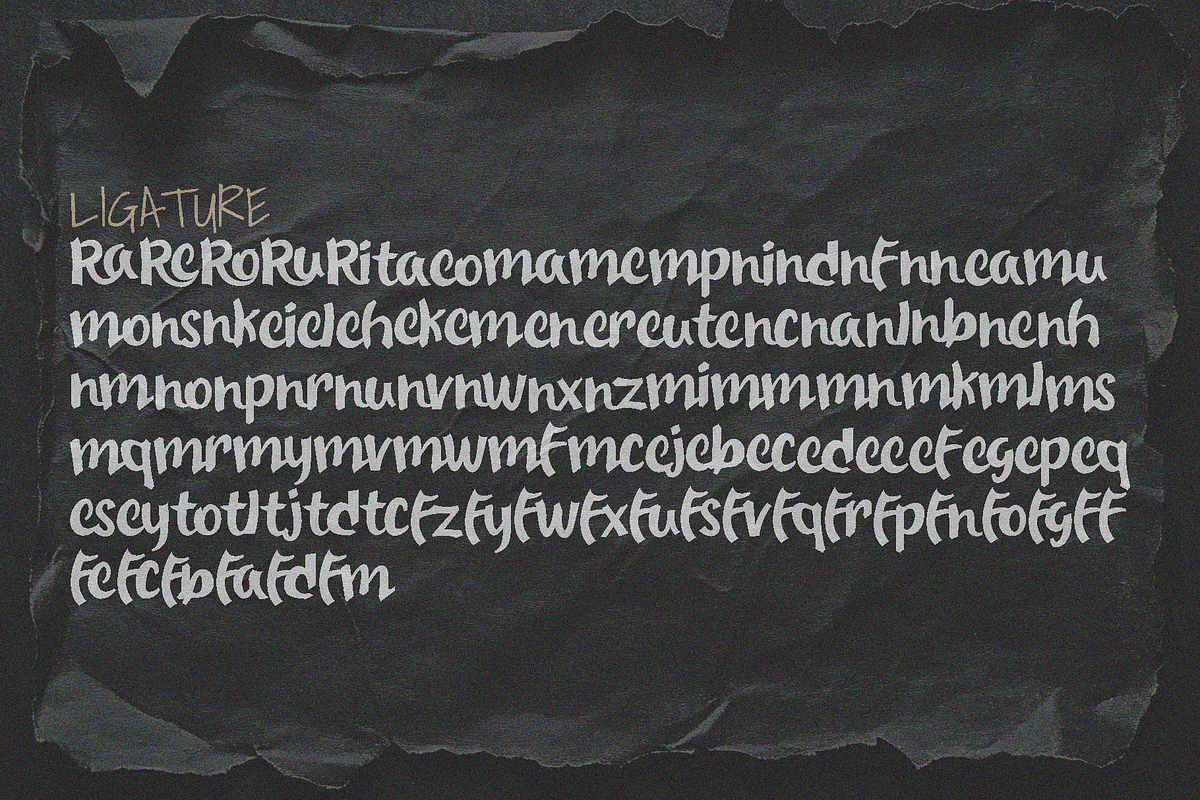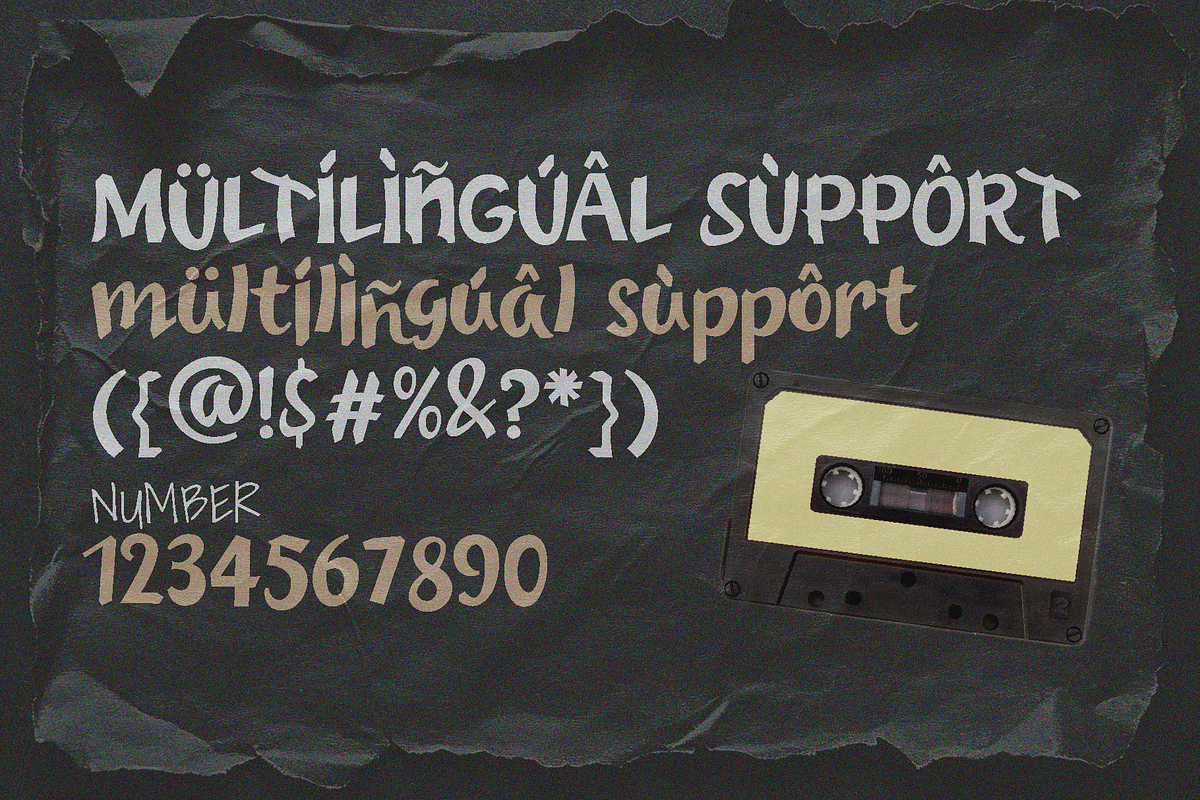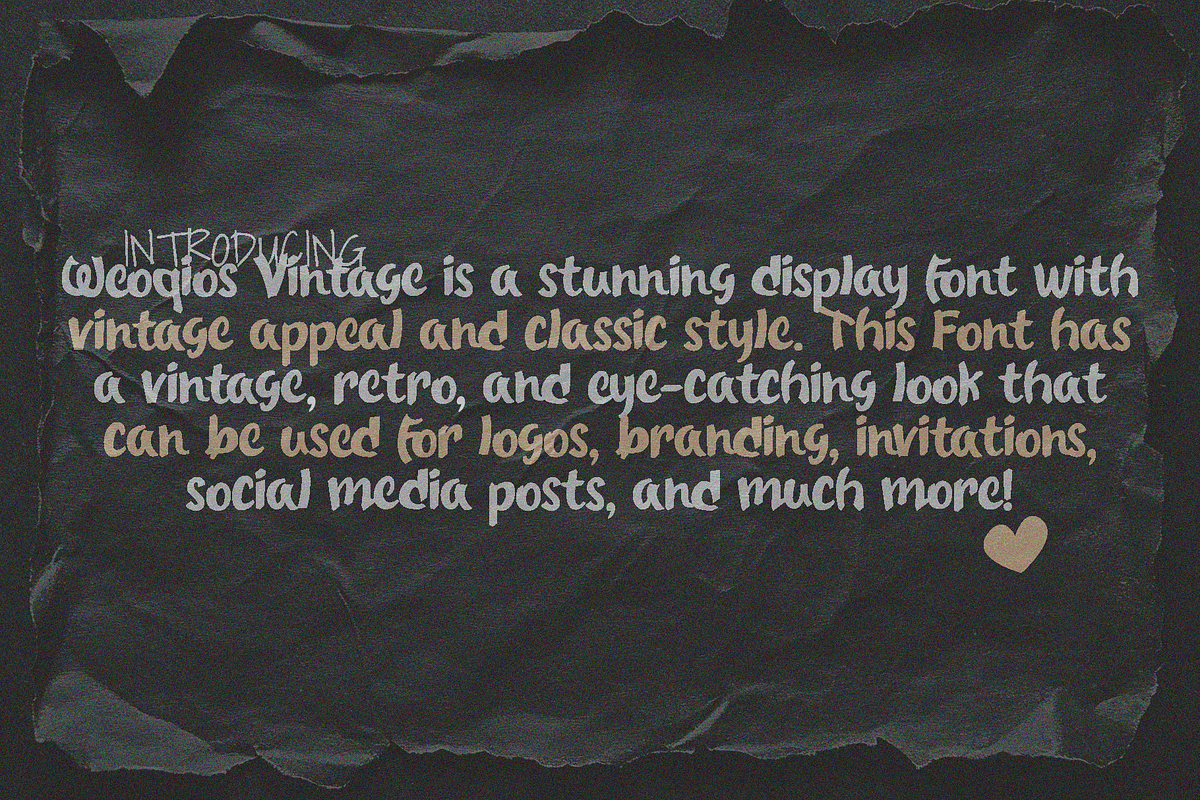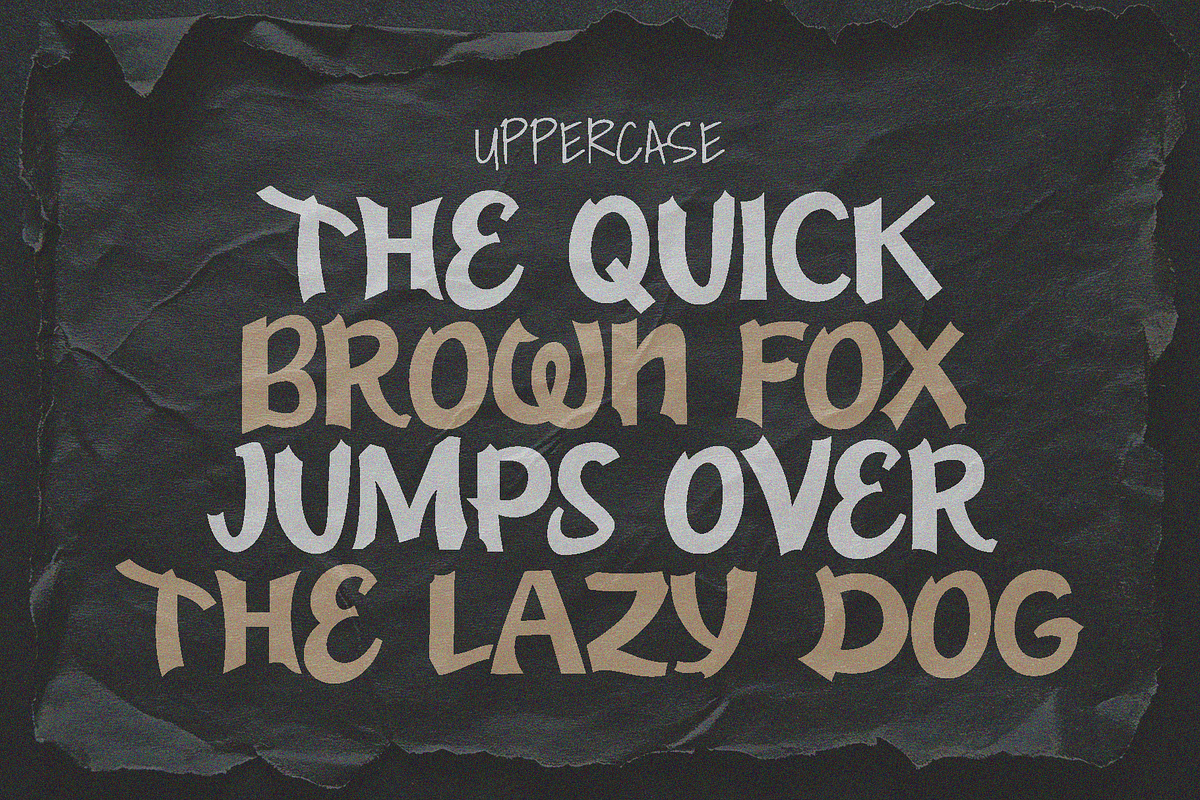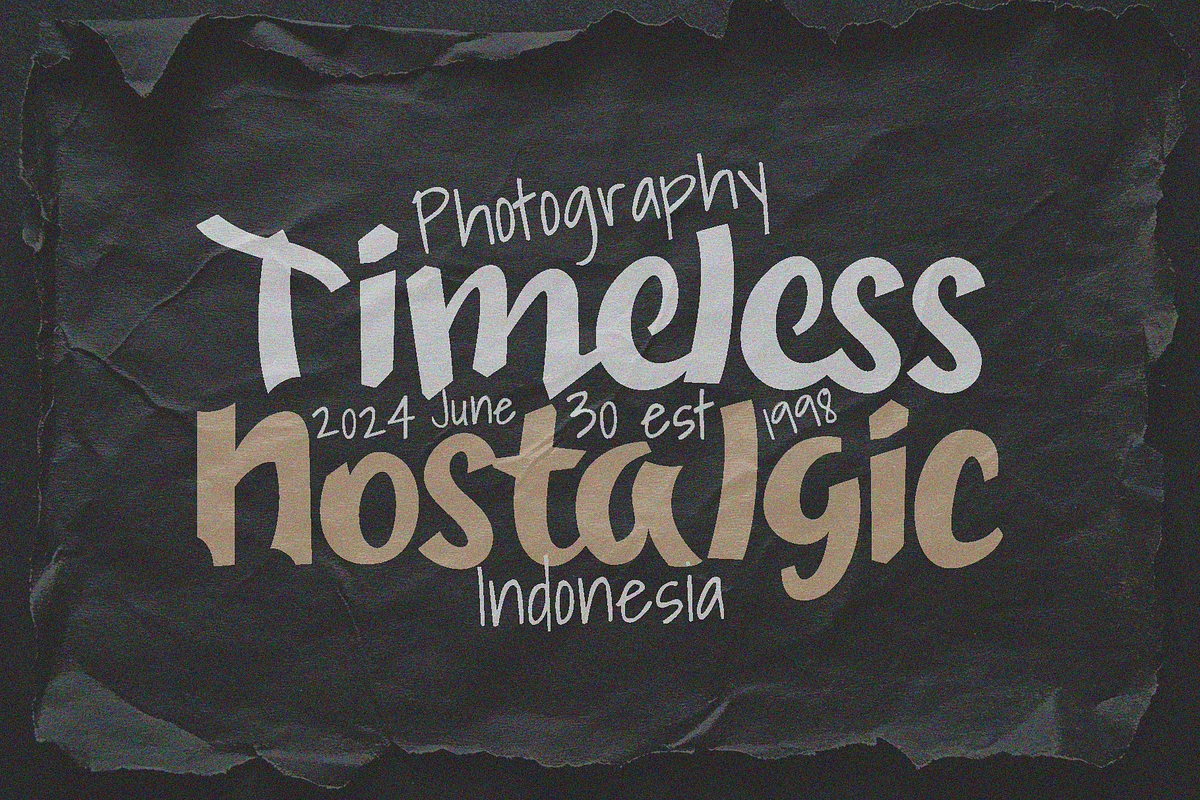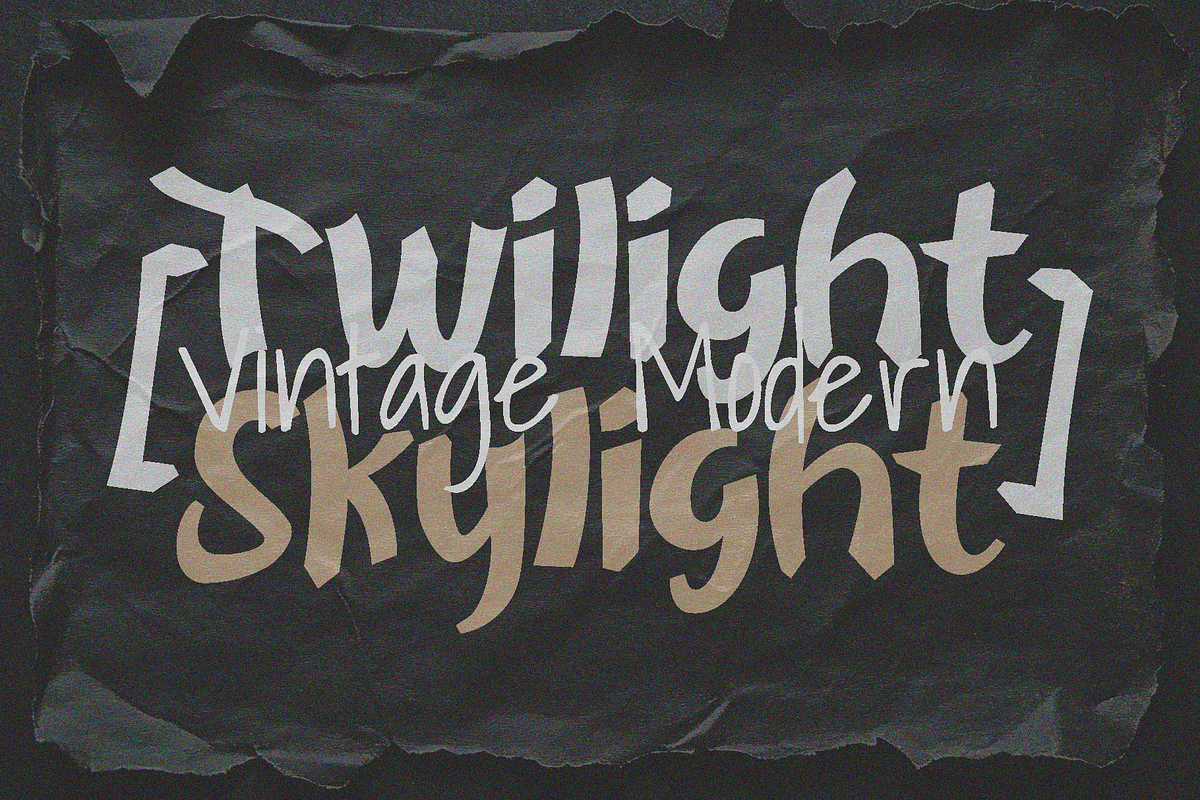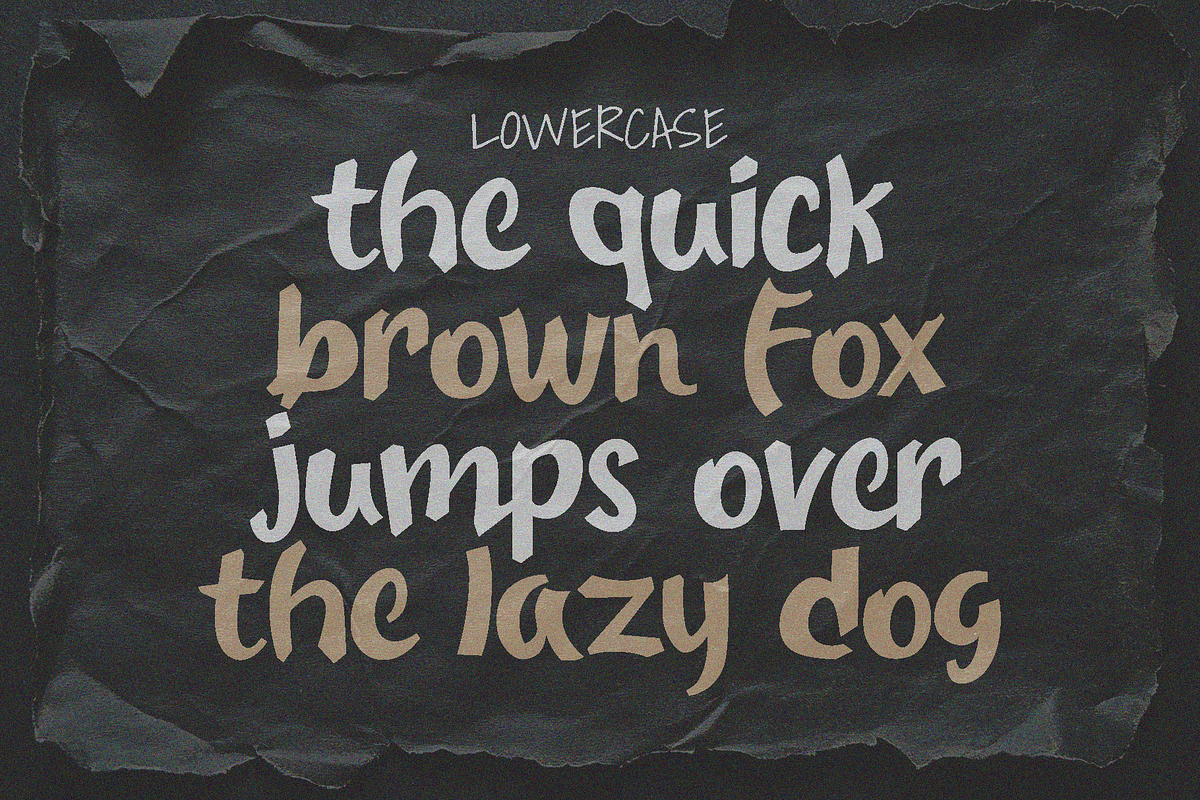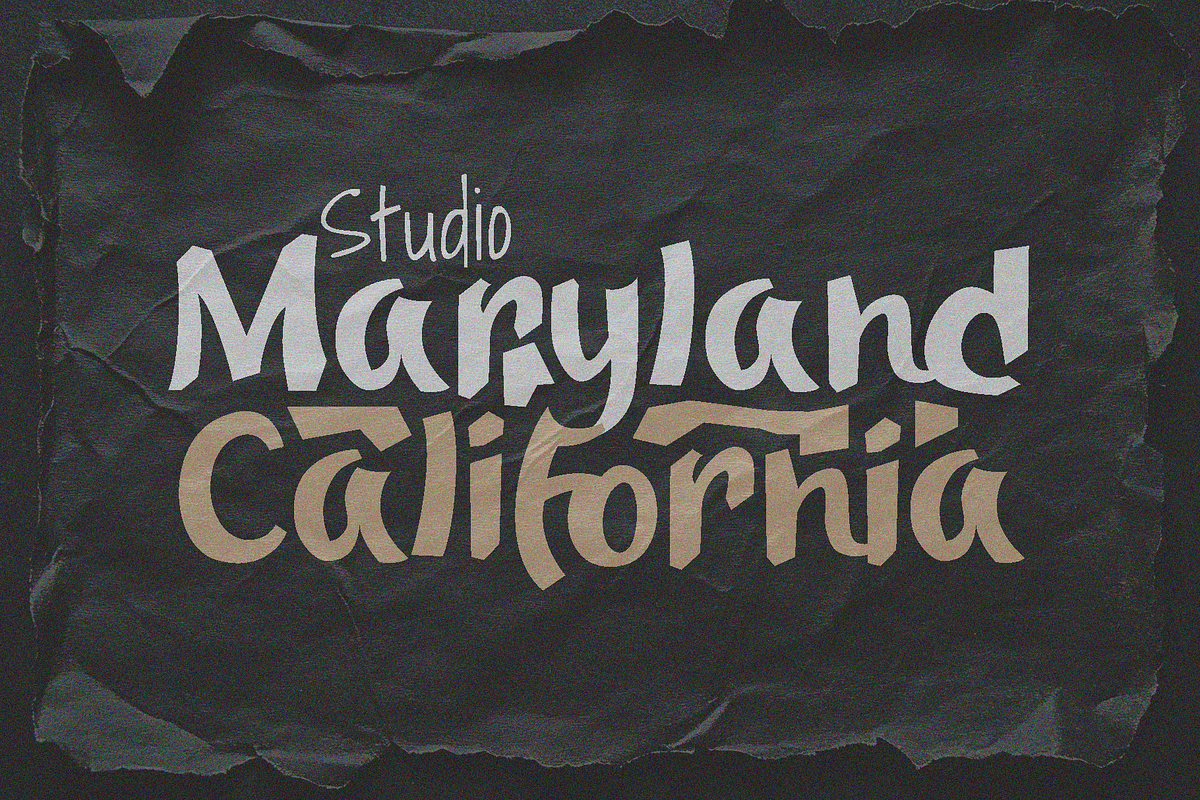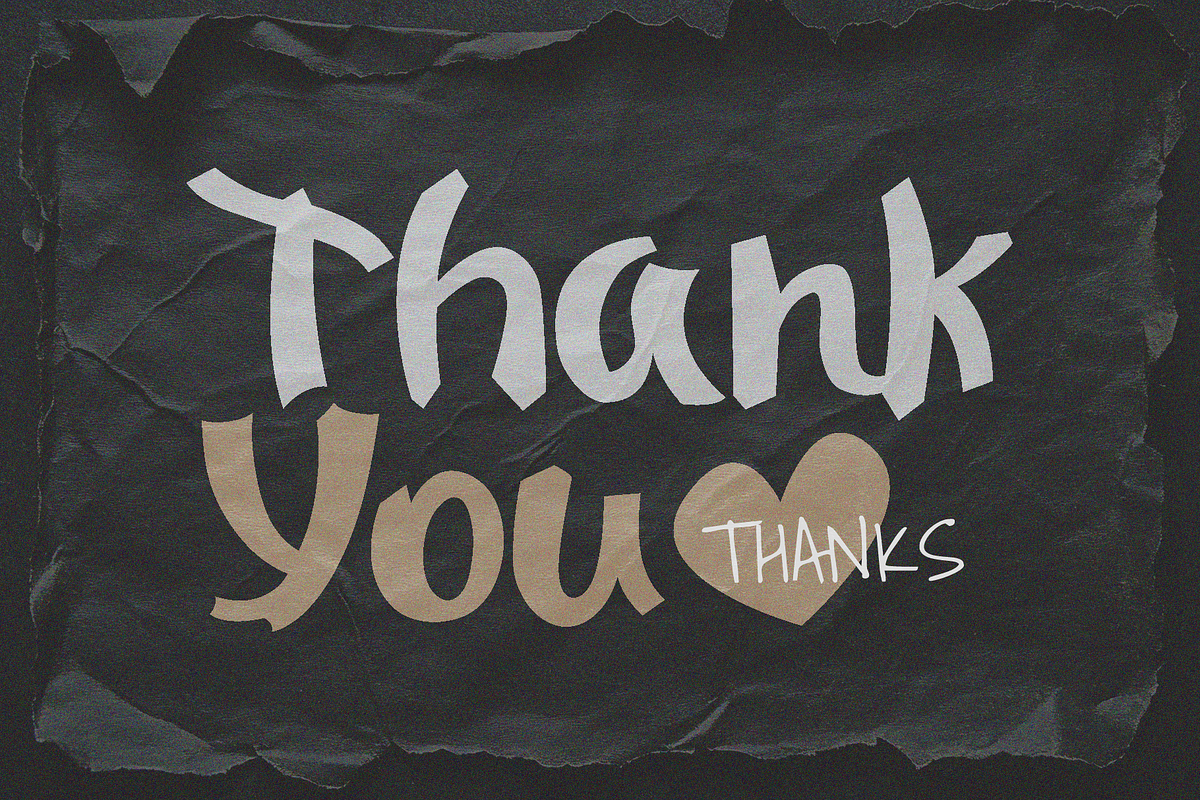
Weoqios Vintage Font
This is the latest version of Weoqios Vintage is a captivating display font that perfectly blends modern vintage aesthetics with classic charm. Featuring a timeless retro appeal, this font is designed to stand out and elevate your projects with its eye-catching style. Whether for logos, branding, invitations, social media posts, or more, Weoqios Vintage adds a touch of elegance and character to every design. Plus, with multilingual support, it ensures versatility across diverse languages and audiences.